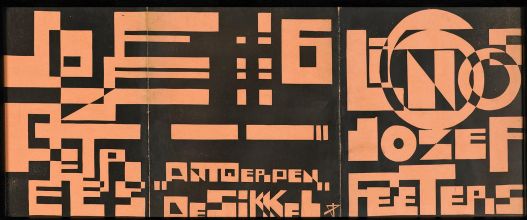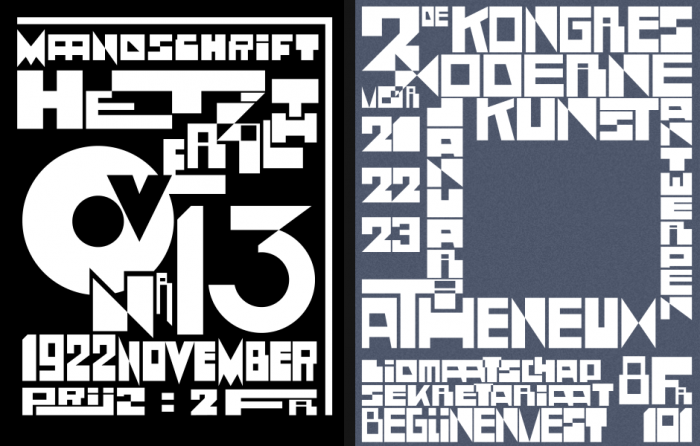
A tribute to Belgian modernist artist "Jozef Peeters" (Antwerp, 1895 - 1960).
He is probably best known for contributions to legendary Belgian avant garde magazines "Het Overzicht" and "DeDriekhoek".
The alphabet I made is based on the letters seen on the folder art for his 1921 linocut portofolio.
(I made use of a couple of lower case letters to make slight variations similar as seen on the original artwork but most lower case are simply copied from the upper case letters.)
Original linocut portofolio folder as was designed by "Jozef Peeters".
That sample's so custom, I don't think it would be possible to fontify it.
Putting quality over accuracy into action, you proved me wrong.
Actually a second one from this artist is in the making..
Here are two of his works I digitally remade as vector and at some point turn them into typefaces. But this two pieces are also my main focus for the next fontstruction.
We could do this one together if you like.. and maybe go a little extreme and try to replicate some of the typographical features we see in the artworks by way of crazy kerning and other awkward metrics.